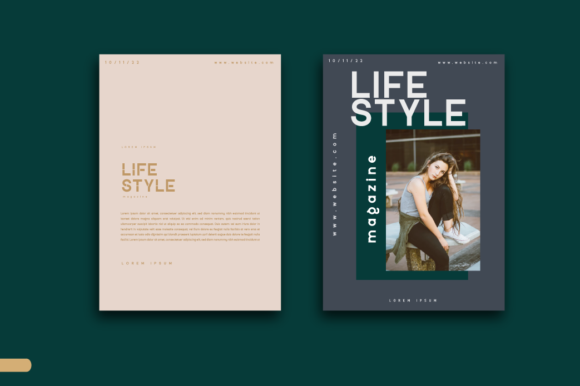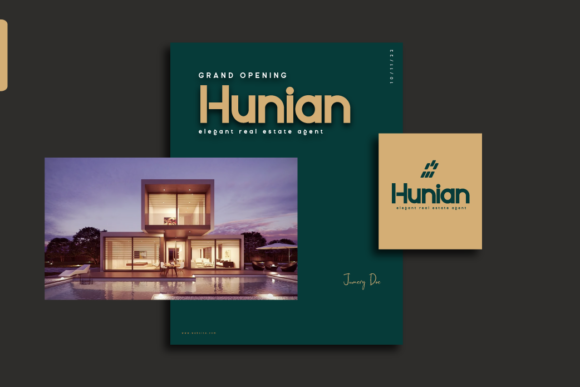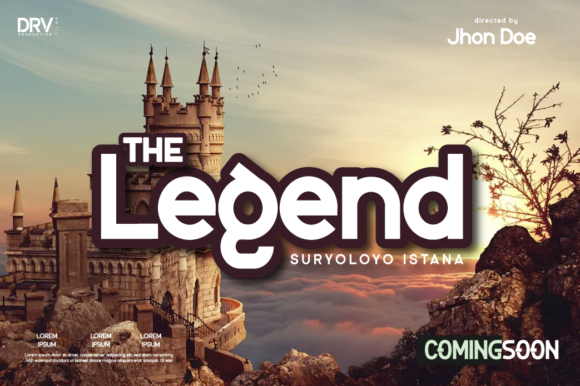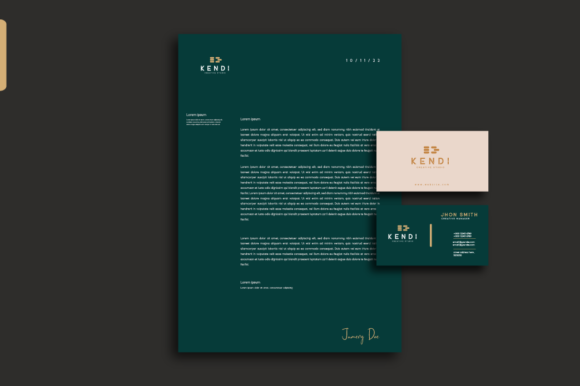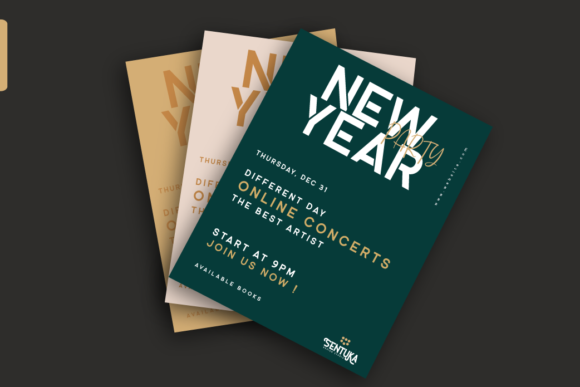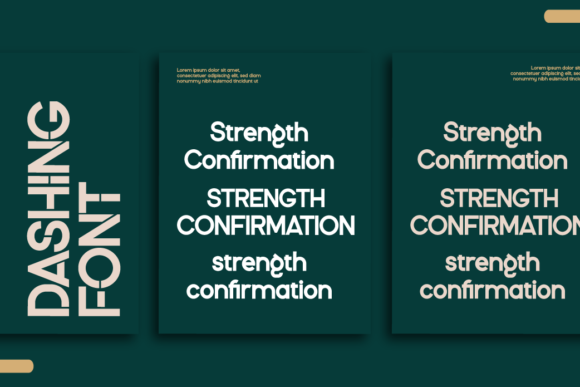
Introduction to Dashing Font
Dashing is a modern and bold sans serif font.
No matter the topic, this font will be an incredibly asset to your fontsโ€™ library, as it has the potential to elevate any creation .
Key Features of Dashing Font
Why Choose Dashing Font?
Dashing Font offers exceptional quality and versatility, making it a valuable addition to your design toolkit. Whether you’re creating for personal projects or commercial use, Dashing Font delivers professional results.